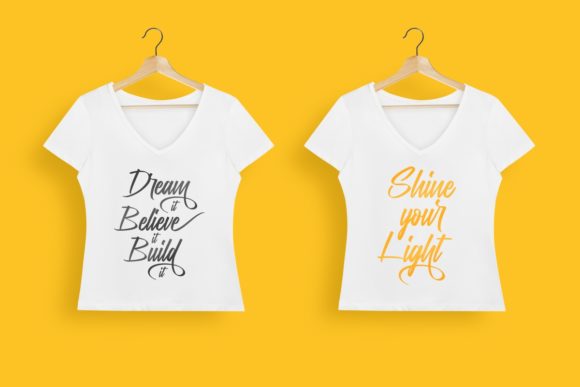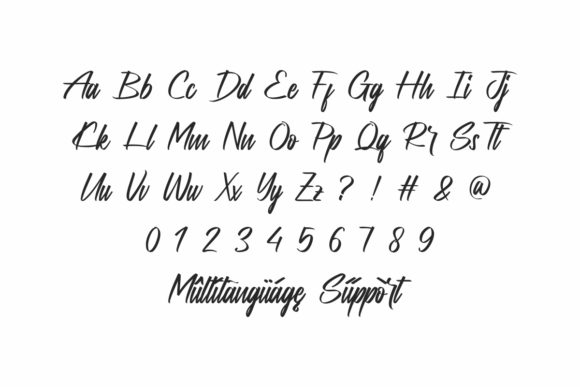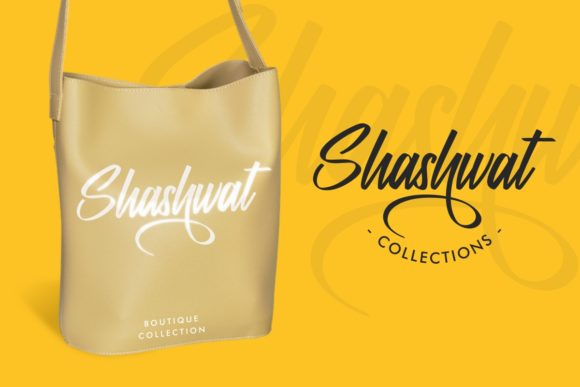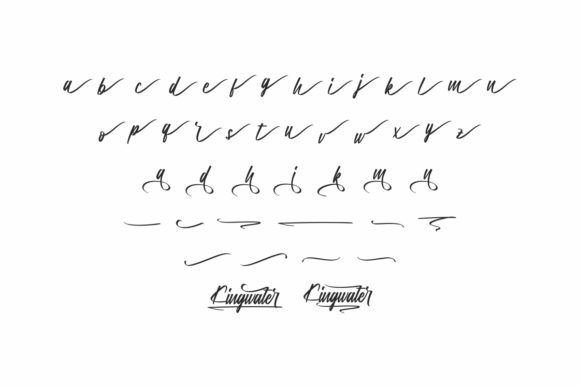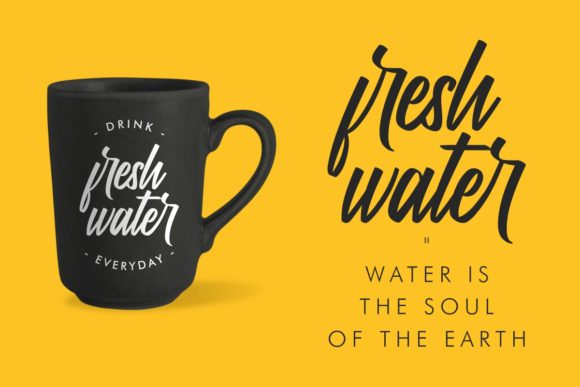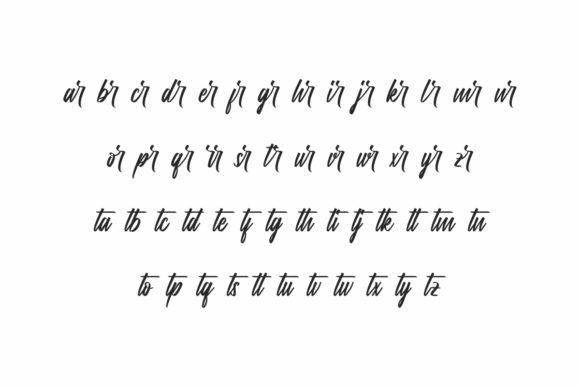
Introduction to Kingwater Font
Have you ever stared at a blank canvas, trying to bring a creative project to life, only to be met with a blank stare in return? That’s where the perfect design resource comes in – a font that can elevate your ideas and make them truly shine. For designers, finding the right font can be the difference between a mediocre design and a masterpiece.
That’s why we’re excited to introduce you to the Kingwater Font, a stunning brush hand lettering font that’s perfect for any branding, product packaging, or invitation project. With its high-quality design and transparent background, this font is a game-changer for any creative endeavor.
Whether you’re looking for a free download to spice up your design or a valuable addition to your design library, the Kingwater Font is an essential resource for any designer. In this article, we’ll explore the features and benefits of this amazing font, and show you how it can take your designs to the next level.
Key Features of Kingwater Font
- Unique, modern font style with a transparent background, perfect for minimalist designs
- Supports a wide range of languages, making it a versatile design resource for global projects
- Perfect for use in various creative projects, including digital art, graphic design, and web development
Honest Review: Kingwater Font
I recently stumbled upon the Kingwater Font, and I must say it’s been a great addition to my design resources. The font offers a wide range of styles, from casual to formal, making it suitable for various creative projects.
One of the things that stood out to me was the high quality of the font. It’s crisp, clean, and perfect for use in logos, headings, and even body text. The transparent background option also makes it easy to use in complex designs.
- ✨ Wide range of styles to suit different design needs
- ✨ Transparent background option for easy use in complex designs
- ⚠️ Limited support for certain languages, which may be a issue for designers working on international projects
- ⚠️ Some users have reported issues with font rendering on certain devices
Overall, I’m impressed with the Kingwater Font. It’s a great resource for designers looking for a high-quality, versatile font. While it may have a few limitations, it’s definitely worth considering for your next creative project.
Kingwater Font: A High-Quality Design Resource
Tips for Getting the Most Out of Kingwater Font
Use the Kingwater Font in conjunction with a transparent background to create a clean and modern design. Experiment with different font sizes and styles to add visual interest to your creative project.
Common Use Cases for Kingwater Font
The Kingwater Font is ideal for use in creative projects such as logos, brochures, and business cards. Its high-quality design and transparent background make it perfect for use in digital designs, such as websites and social media graphics.
Does the Kingwater Font have a transparent background?
Yes, the Kingwater Font has a transparent background, making it easy to use with any design element or background. This feature is particularly useful for creating visually appealing designs with complex layouts.